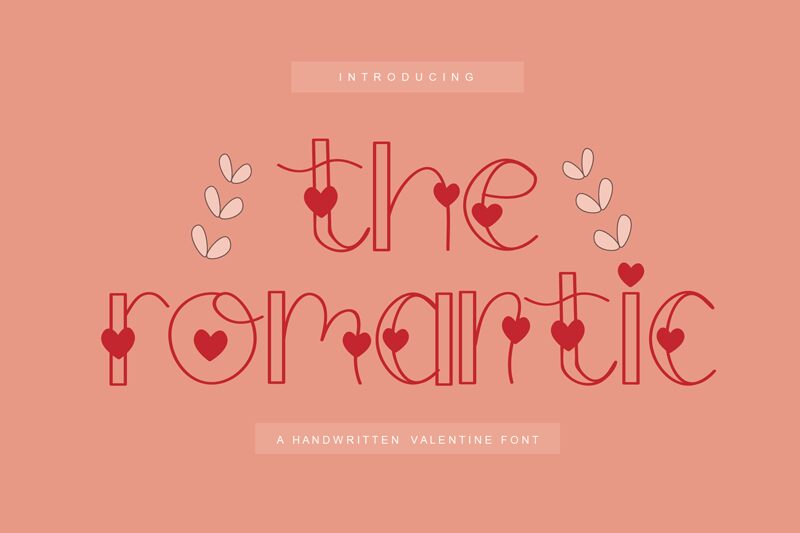
The Romantic font by hl_studio is a free font with a whimsical, elegant, and modern appeal, perfect for expressing love-themed concepts. Beautifully crafted for creative professionals, this typeface comes with decorative elements and hearts incorporated into its design. It features flowing lines and an artistic flair that offers a distinct visual interest to any project. Engaging and emotionally expressive, it is especially suitable for Valentine's Day designs.
Enjoy using this artistic font for cards, invitations, posters, branding, and marketing material projects. It will work as well on greeting cards, gifts wrapping, book covers and packaging, feminine items branding, and stickers decoration. Unleash the romantic effect of each letter on social media posts or website banners. Visual content will stand out and get the attention of the target audience quicker.